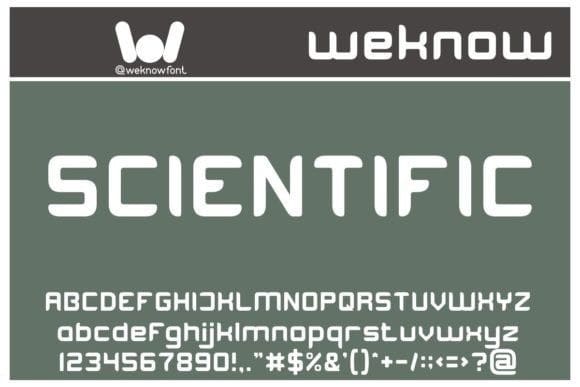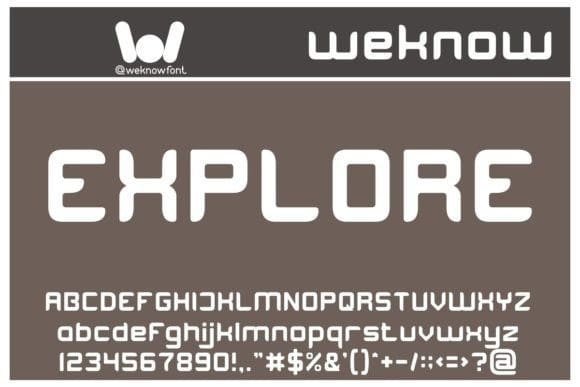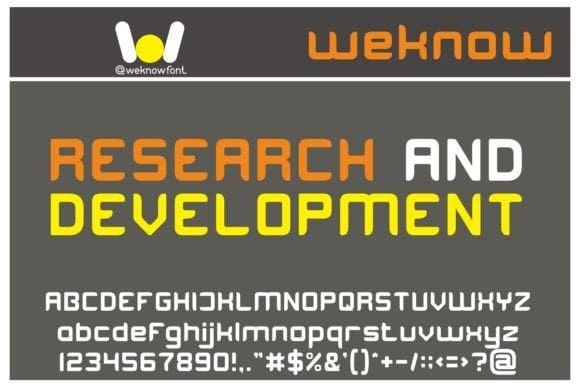
Research And Development Font
Research And Development Font, is a cool and modern display font. Trendy and stylish, this font will elevate each of your creations.